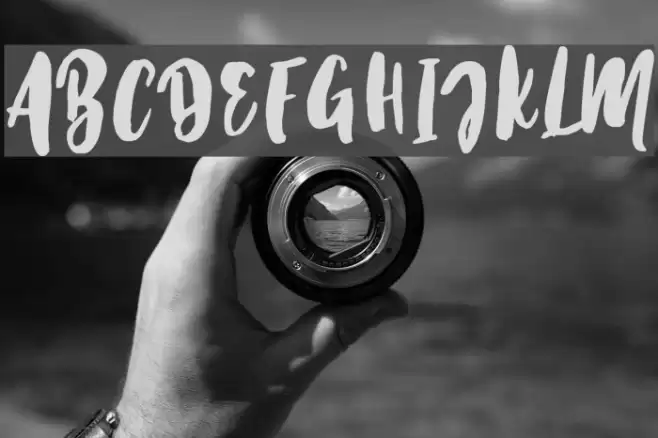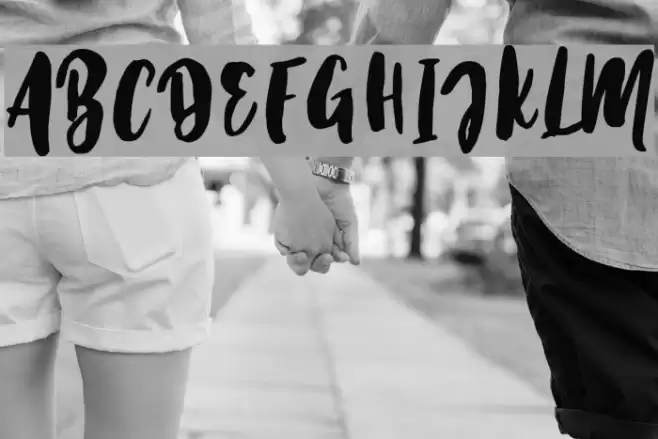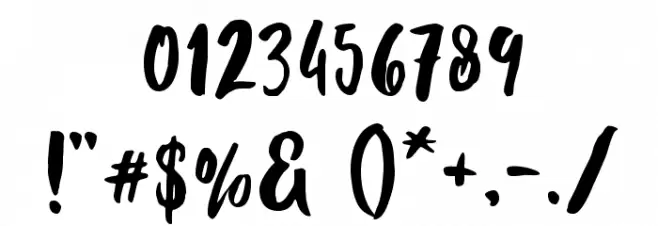
KristaleScript-Regular Font
KristaleScript-Regular Description
This font features a bold, expressive script style with a hand-painted appearance. The letters are characterized by their fluid, sweeping strokes and varying thickness, giving a dynamic and artistic feel. The uppercase letters are particularly bold and prominent, while the lowercase letters maintain a consistent flow and rhythm. The numbers and special characters are designed to complement the alphabet, maintaining the same artistic flair. This font's overall aesthetic is both modern and playful, making it suitable for creative and eye-catching designs.
A bold, expressive script font with a hand-painted, artistic style from Uncategorized fonts.
- Proposed Projects: Ideal for branding, logo design, invitations, and creative posters.
- Overall Style: Modern, Decorative
- Use Case: Logos, Headlines, Invitations